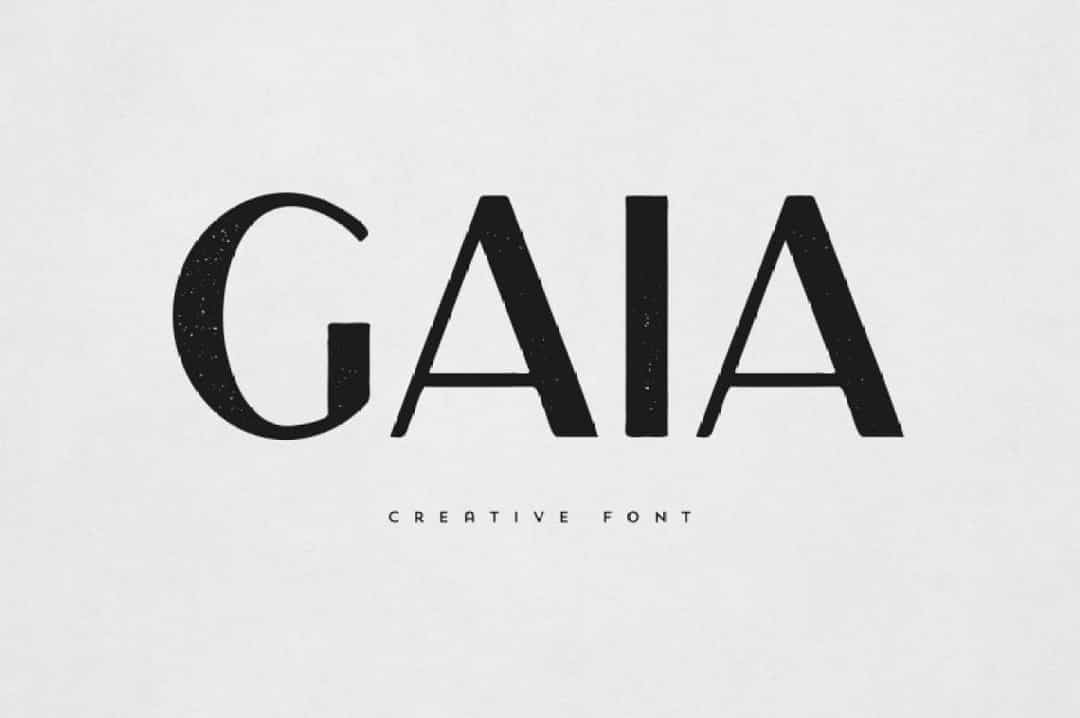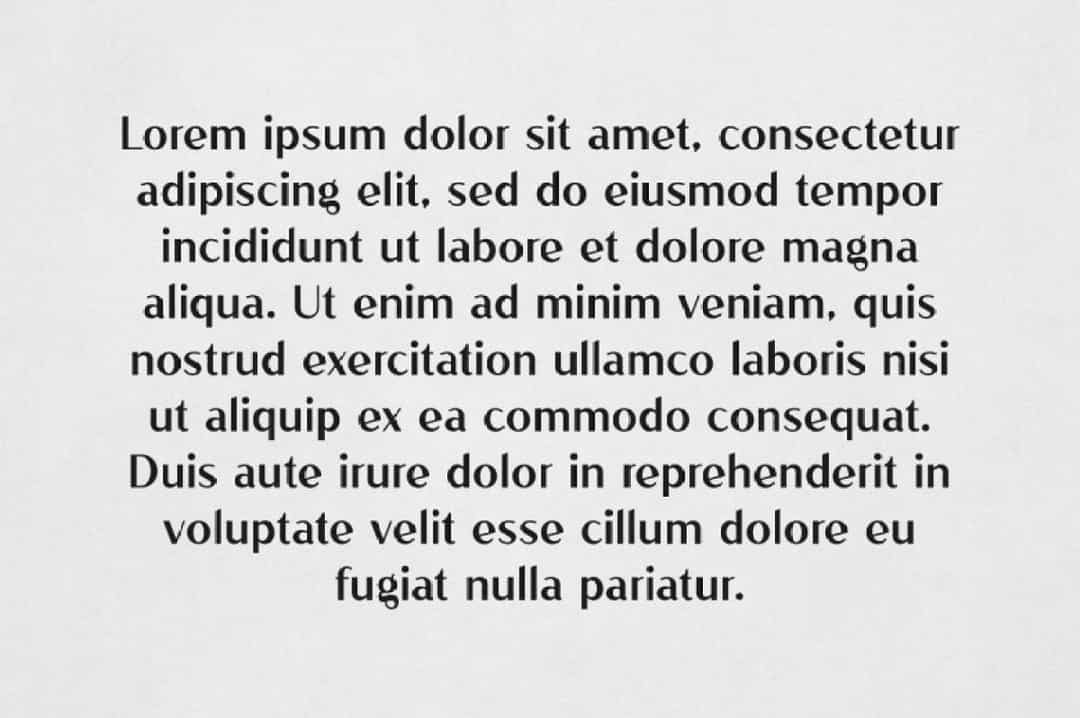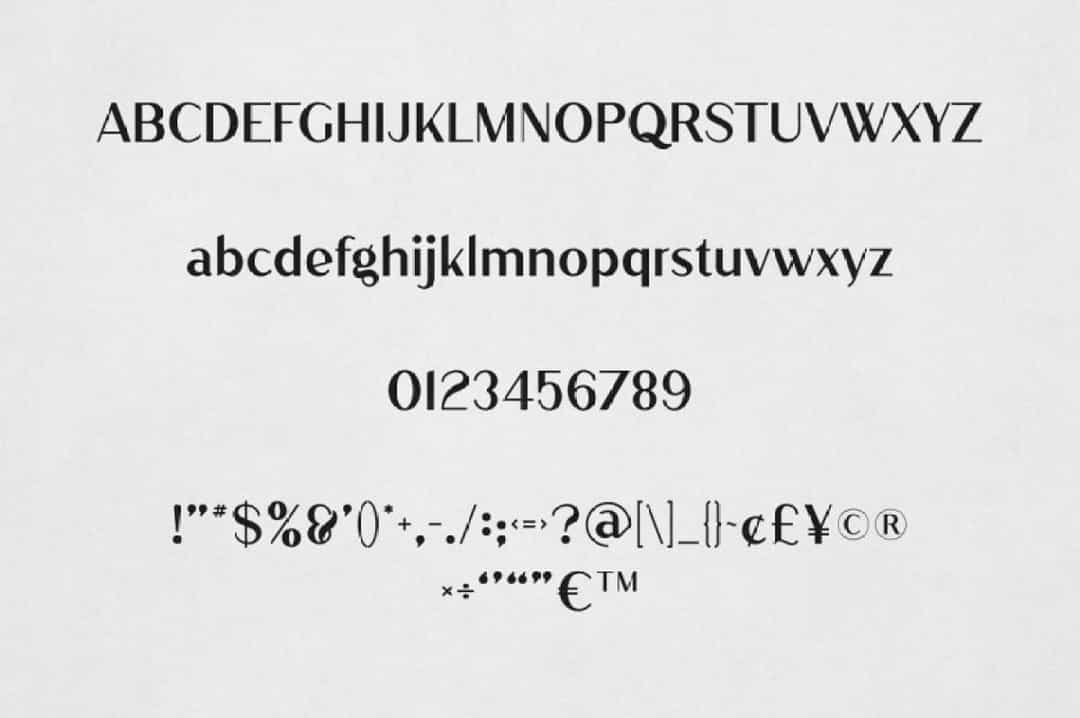
Gaia Sans is an elegant and adaptable sans serif font that creates truly striking typography! Perfect for home-ware projects, branding designs, packaging of products or magazine headers; also makes a chic text overlay in background images.